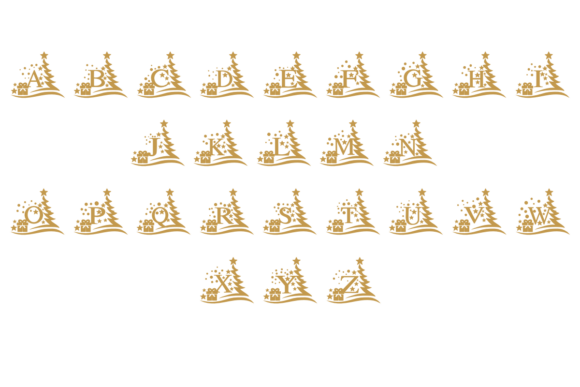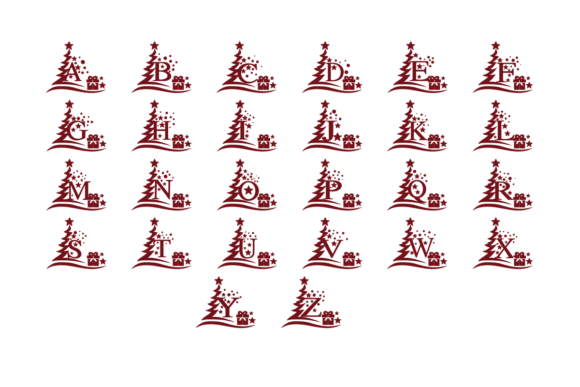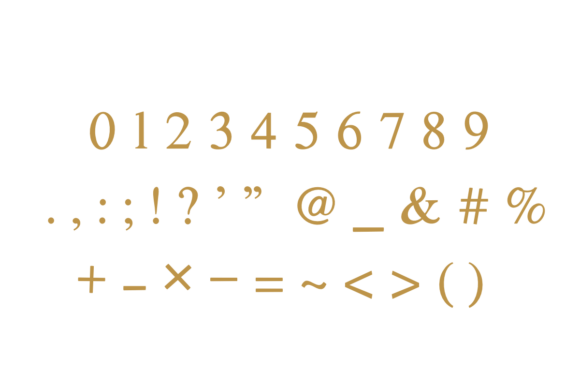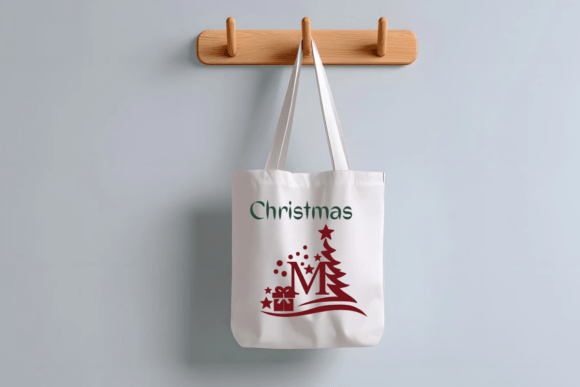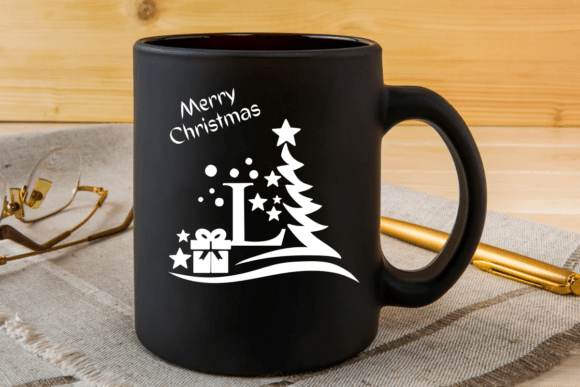
Unwrap the Magic of the Season with Christmas Gift Font
As the holiday season approaches, many designers find themselves searching for the perfect font to capture the essence of Christmas. It’s that moment when you’re brainstorming ideas for a client’s holiday campaign, and you stumble upon the perfect font that instantly brings warmth and wonder to your project. For many designers, that font is the Christmas Gift Font – a decorative font that sparkles with holiday cheer and festive charm.
With the Christmas Gift Font, you can add a festive touch to your designs, from greeting cards and invitations to packaging and logos. Its unique blend of Christmas trees, stars, and gift motifs makes it the perfect addition to any holiday project. As a designer, you’ll appreciate the versatility of this font, which can be used in a variety of creative ways to make your designs stand out.
Key Features of Christmas Gift Font
- Font Family: Christmas Gift Font is a unique, hand-drawn font designed specifically for the holiday season.
- Unique Characteristics: Features a playful, whimsical design with intricate details, ornaments, and festive elements, adding a touch of holiday magic to any design project.
- Character Set: Includes a comprehensive set of characters, including uppercase and lowercase letters, numbers, punctuation marks, and special characters, making it a versatile font for various design needs.
Designer Review: Christmas Gift Font
I recently had the chance to play around with the Christmas Gift Font, and I must say it’s a mixed bag. ✨ The font’s use of festive colors and ornaments does add a fun and playful touch to any design project. The intricate details and patterns make it a great choice for winter-themed designs, cards, and gift tags.
- The font is highly customizable, allowing designers to adjust the color palette, size, and ornament placement to suit their project’s needs.
- It’s a great option for designers looking to create a cohesive brand identity with a seasonal twist.
However, there are a few limitations to consider. ⚠️ The font’s overall design can feel a bit cluttered, especially when used in larger sizes. Additionally, the ornaments and patterns can be a bit distracting if not used thoughtfully. Some users may find the font’s limited character set restrictive, particularly for longer texts.
Overall, I’d say the Christmas Gift Font is a solid choice for designers looking to add some holiday cheer to their projects. While it may not be perfect, its unique charm and customization options make it a great option for those looking to get creative during the holiday season.